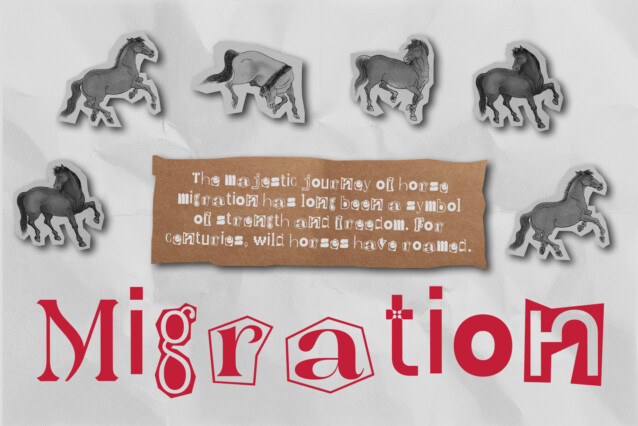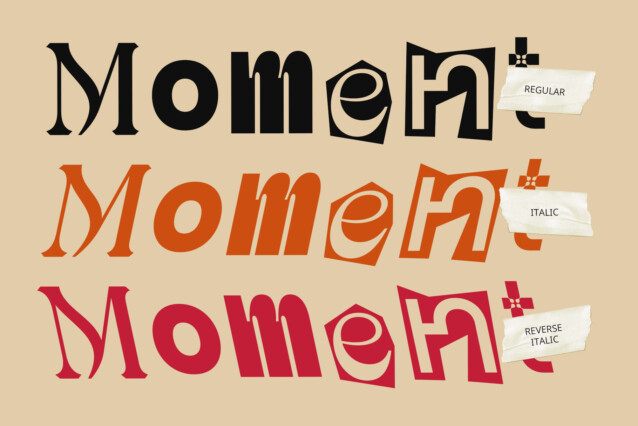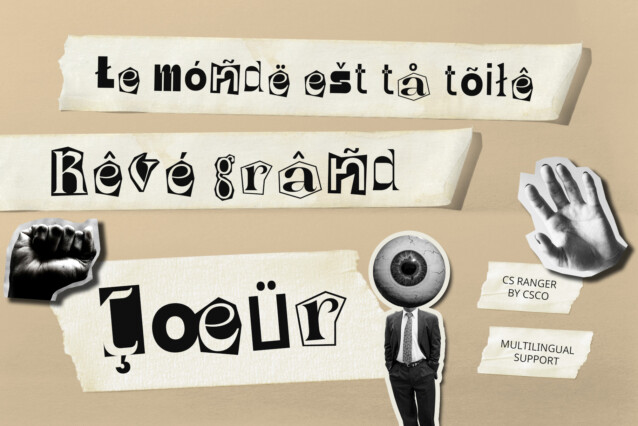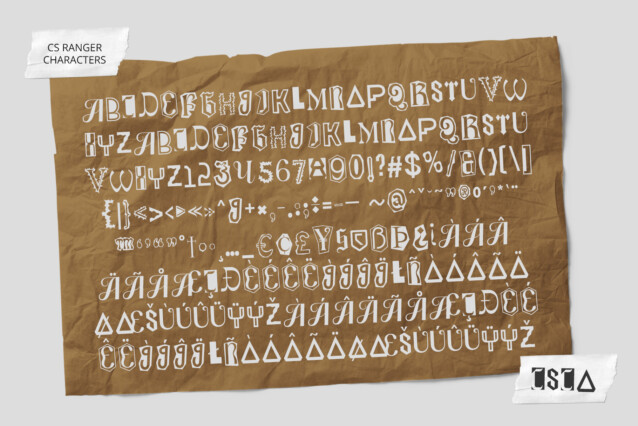
CS Ranger Font
CS Ranger Font is a unique display font inspired by the eclectic style of cut-out letters and ransom notes. Its irregular letterforms vary in style, size, and texture, creating a dynamic, layered effect reminiscent of collage art. Perfect for designs that need to stand out, CS Ranger delivers a quirky and playful vibe, ideal for creative and unconventional projects.